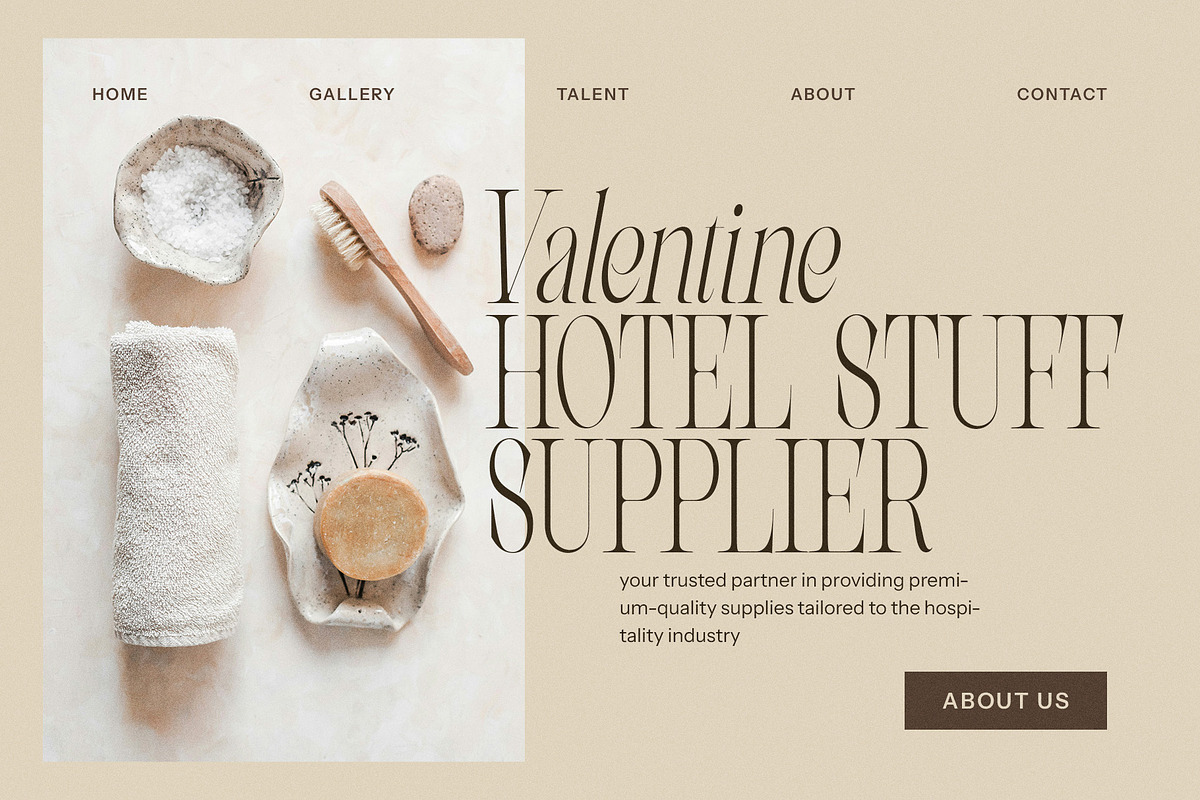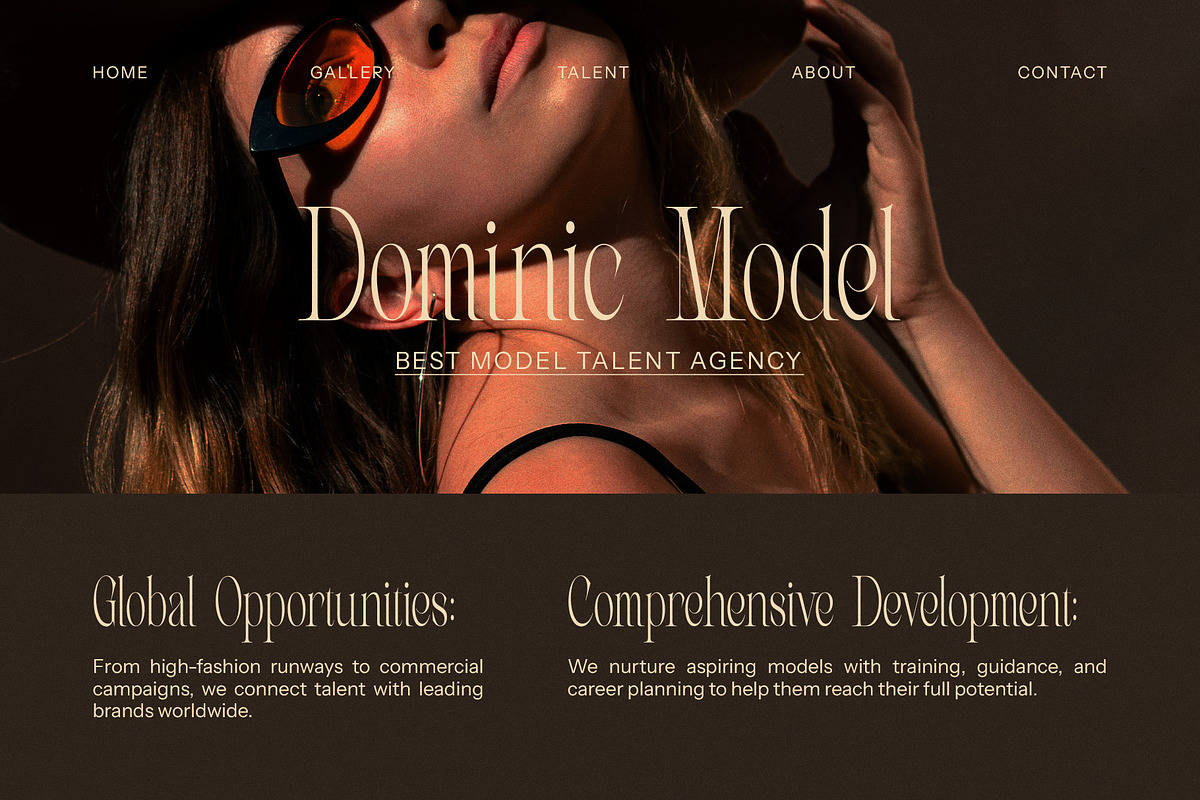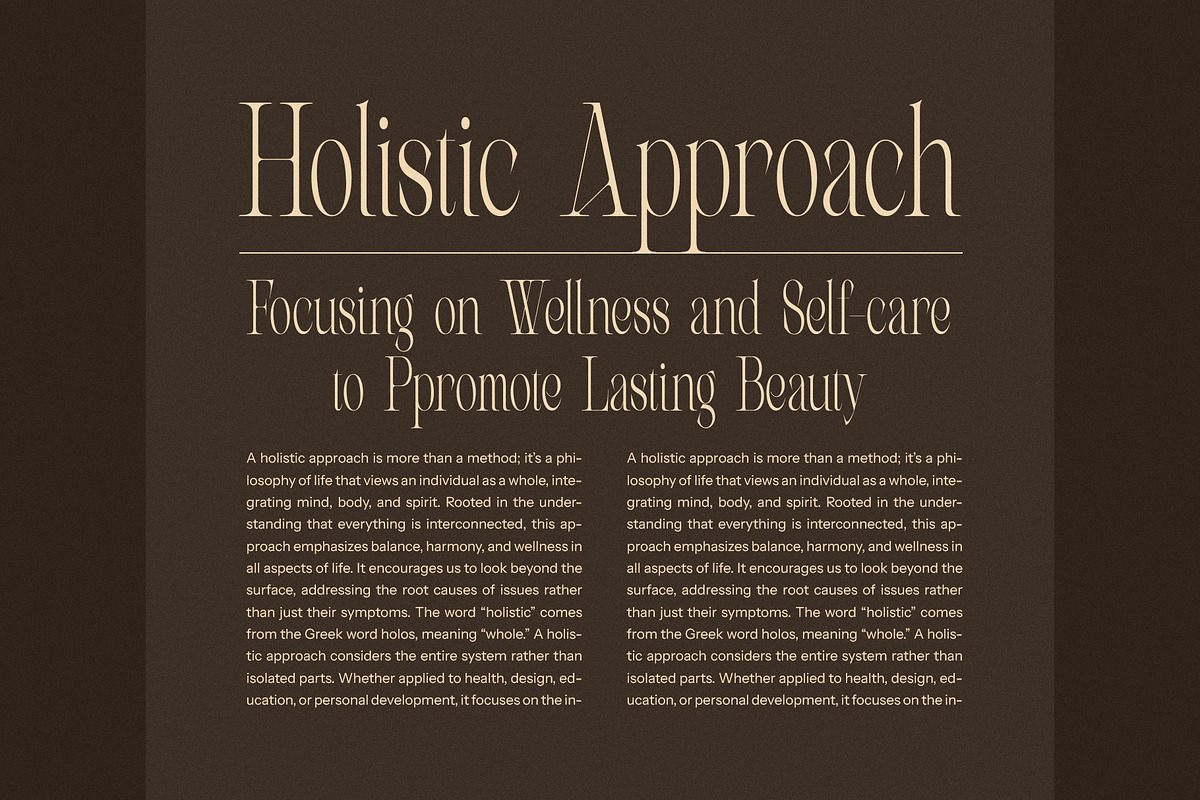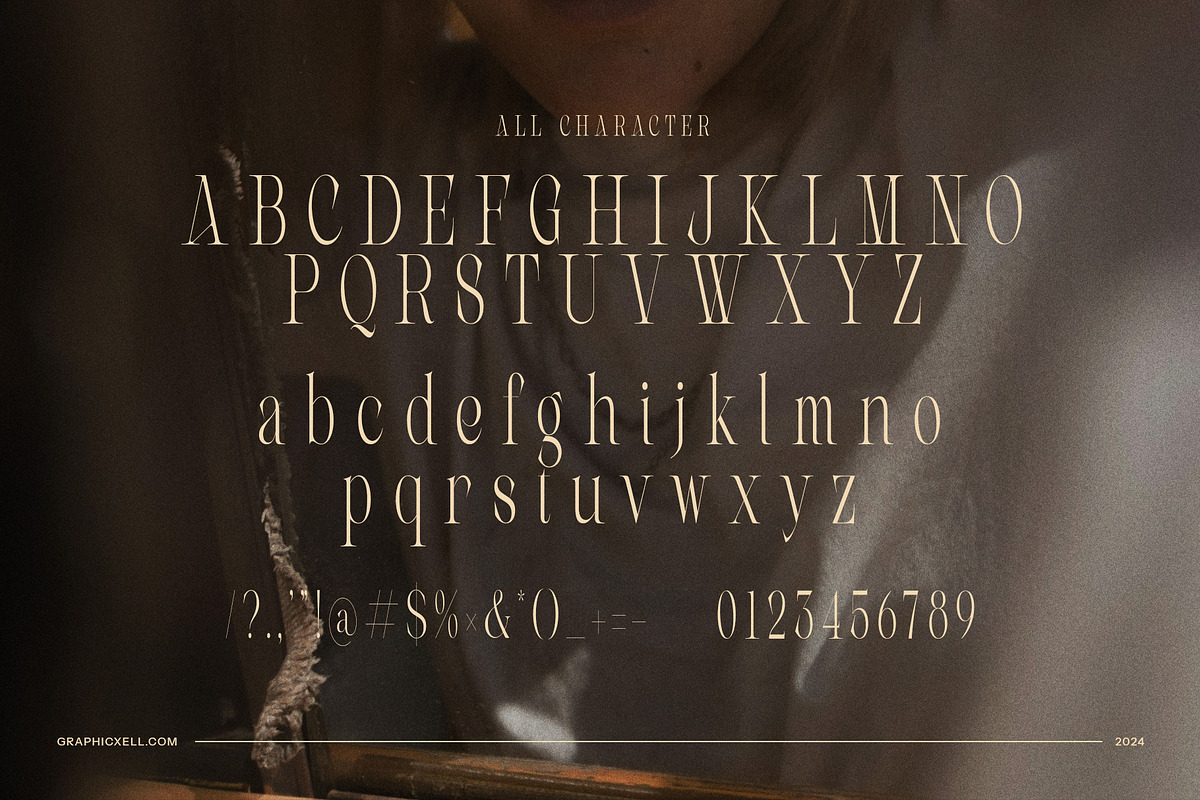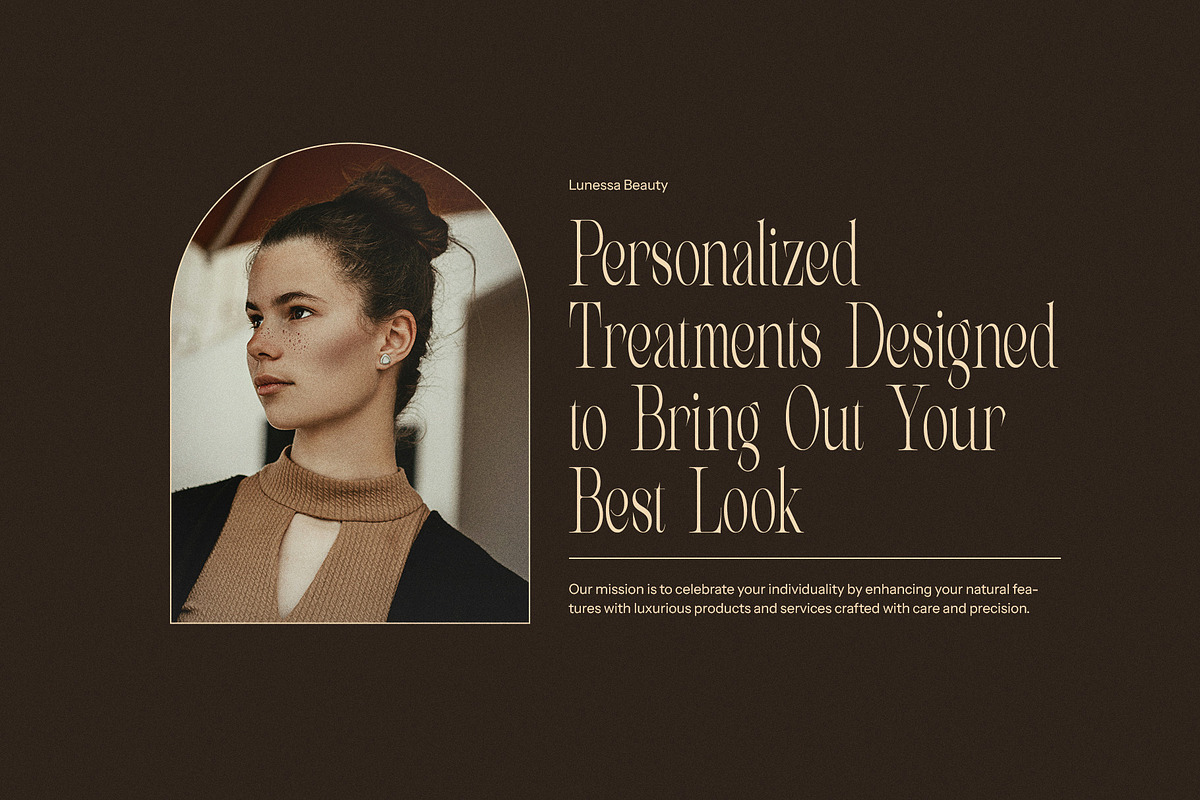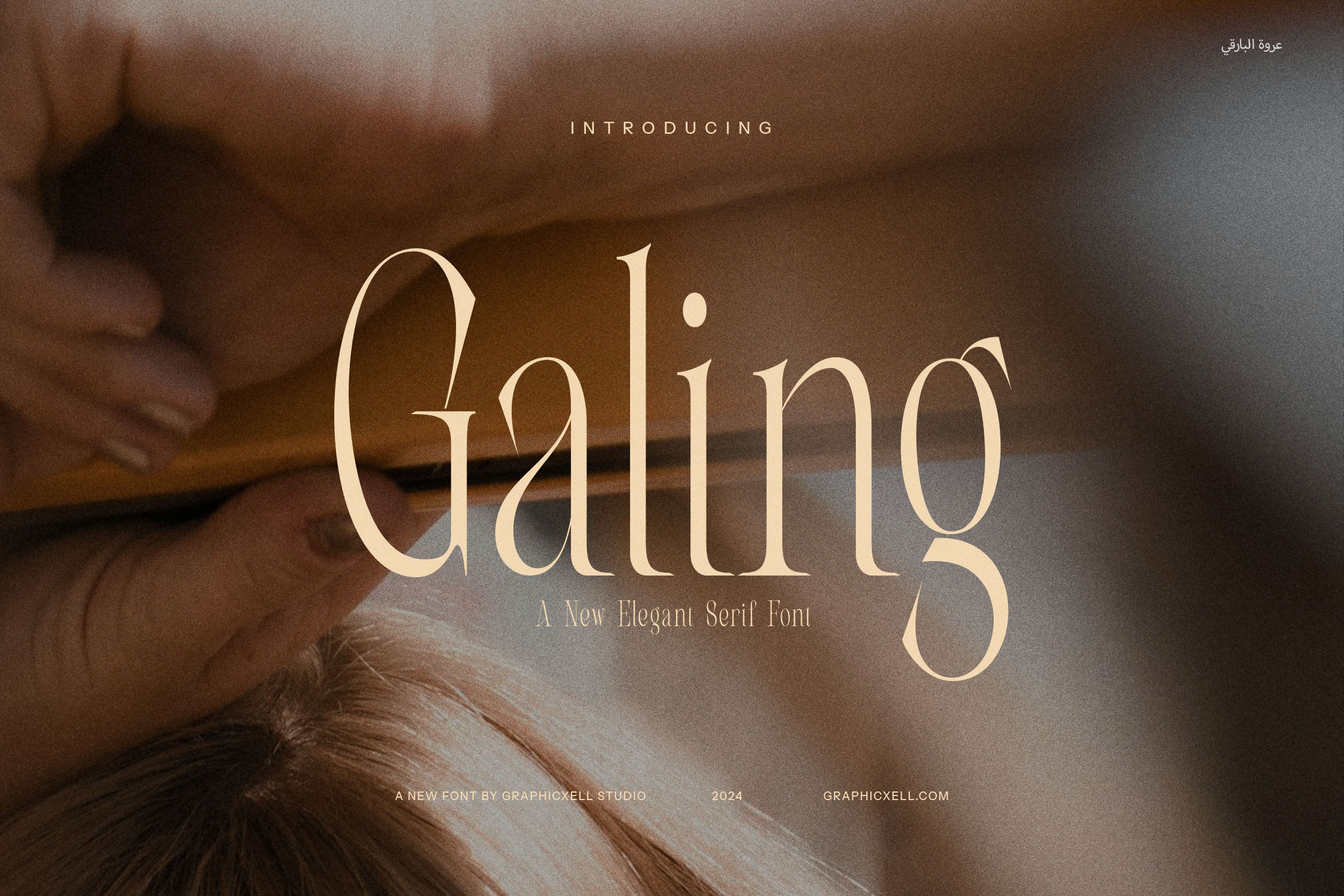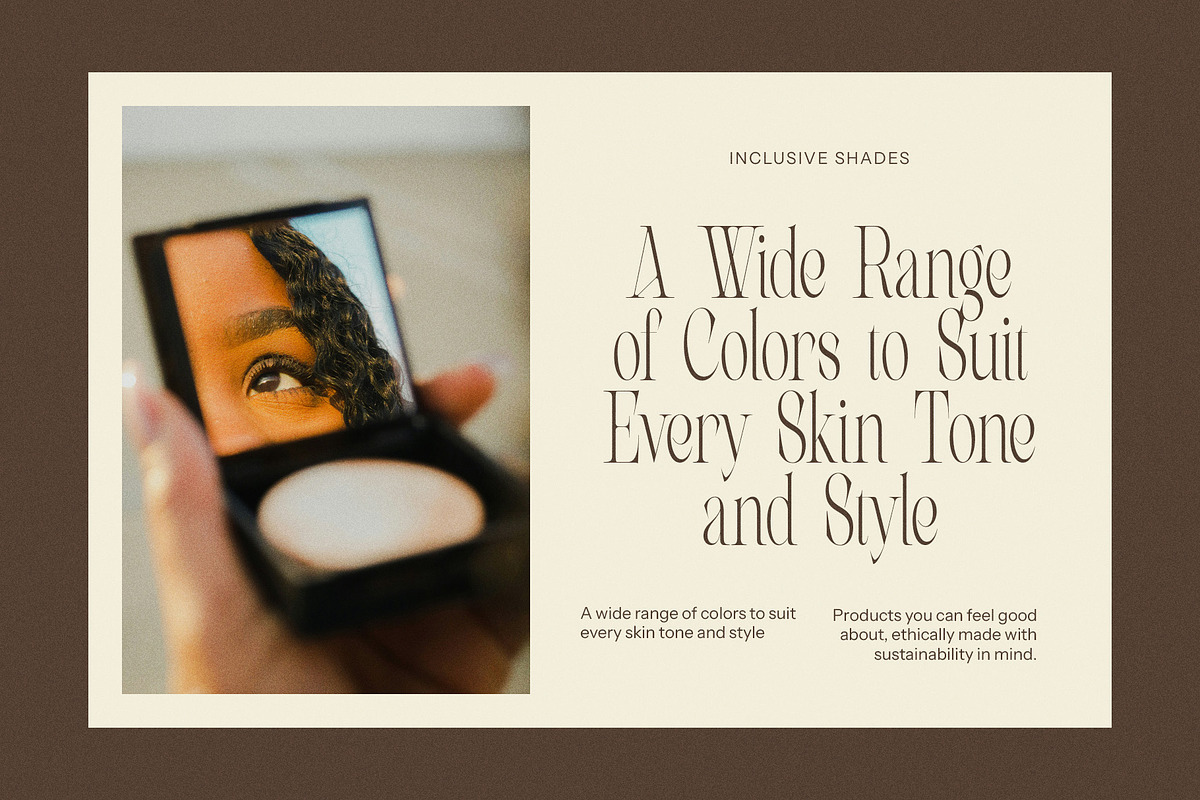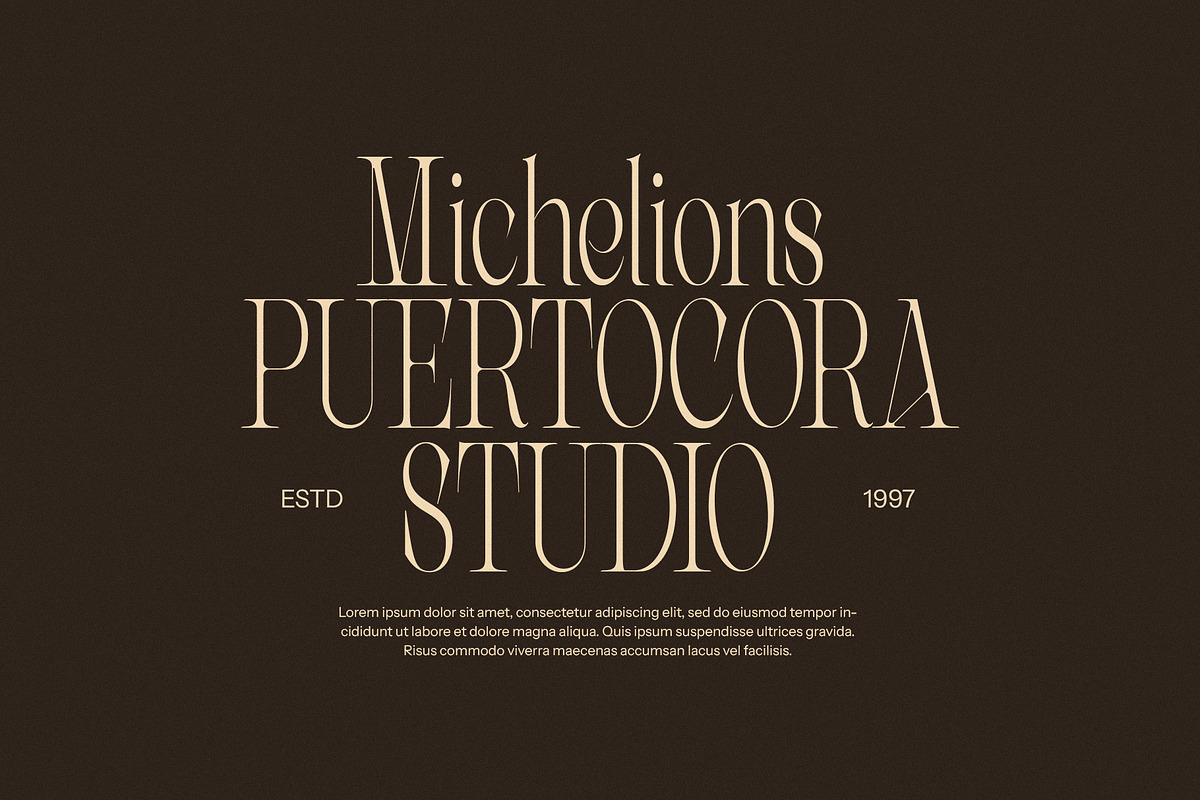
Galing Modern Serif Font
Galing Modern Serif Font is a stunning typeface that masterfully blends vintage elegance with modern design. With its unique long and thin letterforms, Galing offers a refined and graceful look that instantly elevates any project. The delicate balance of its vintage-inspired serifs and sleek modern lines gives it a timeless appeal, making it the perfect choice for designs that demand both sophistication and style.
The beauty of Galing lies in its slender proportions, which lend a sense of lightness and elegance to any design. Its elegant, elongated shapes create a striking visual impact, making it ideal for a wide range of creative applications, from high-end logos and branding to stylish website designs and product packaging. Galing's refined aesthetic also makes it perfect for magazines, layouts, advertisements, and boutique branding, where a sophisticated, luxurious look is essential.
This font is particularly suited for projects in the fashion, food, and lifestyle industries, where the need for both elegance and readability is paramount. Whether you're designing eye-catching product labels or crafting a chic web layout, Galing delivers a modern yet classic feel that captures attention and communicates quality.
Galing Modern Serif Font is as versatile as it is beautiful, offering an exceptional user experience in both print and digital formats. Its unique blend of vintage and modern elements ensures it remains timeless, while its delicate letterforms make it a standout choice for any design seeking elegance, refinement, and a touch of old-world charm.